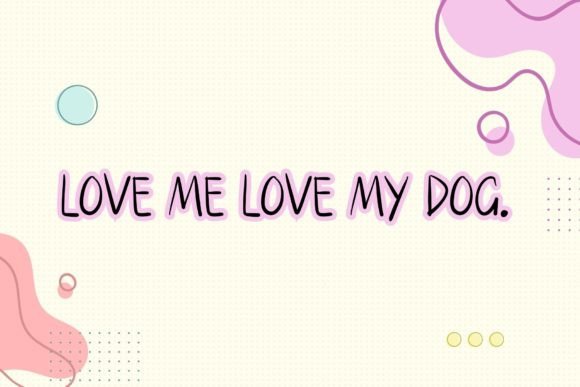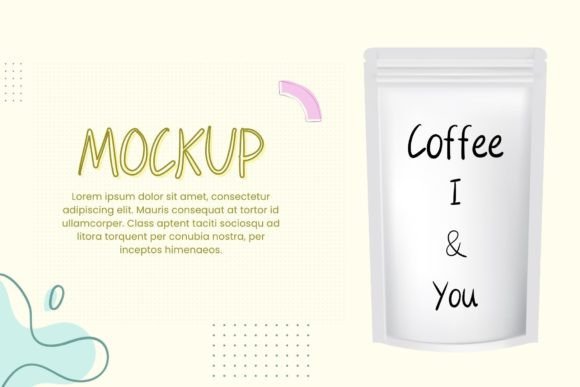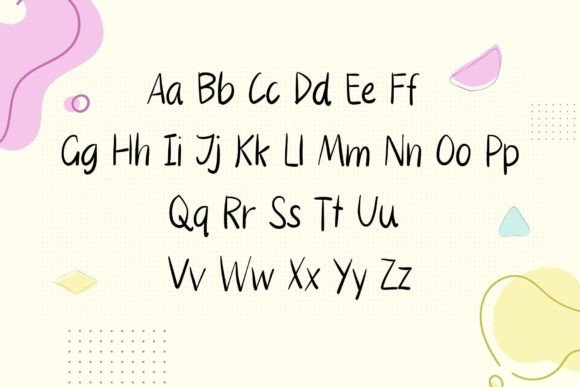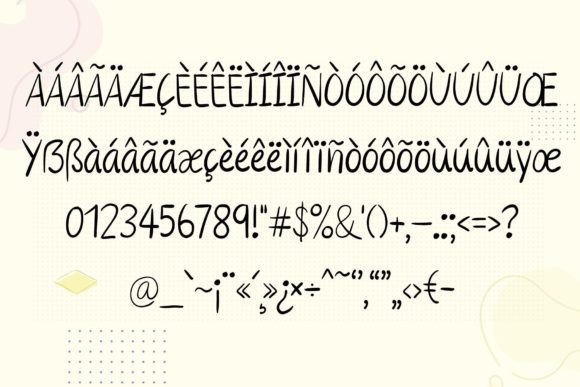
Introducing Annabel Font: The Playful and Cute Handwritten Font for Your Creative Projects
Are you a designer, crafter, or DIY enthusiast looking for a font that can add a touch of playfulness and charm to your creative projects? Look no further than Annabel Font, a beautiful and versatile handwritten font that’s perfect for a wide range of applications. In this article, we’ll take a closer look at Annabel Font, its features, and how you can use it to elevate your designs.
What is Annabel Font?
Annabel Font is a cute, handwritten font that’s designed to bring a sense of fun and personality to your designs. This playful sans-serif font is perfect for creating eye-catching invites, cards, logos, and any other creative projects that require a touch of whimsy. With its unique and charming lettering style, Annabel Font is sure to capture the attention of your audience and leave a lasting impression.
Key Features of Annabel Font
So, what makes Annabel Font so special? Here are some of its key features:
- Cute and Playful Design: Annabel Font has a unique and adorable design that’s perfect for creating fun and engaging designs.
- Handwritten Style: This font has a beautiful handwritten style that gives it a personal and human touch.
- Sans-Serif: Annabel Font is a sans-serif font, which makes it easy to read and perfect for digital applications.
- Versatile: This font is versatile and can be used for a wide range of projects, from invites and cards to logos and branding.
How to Use Annabel Font in Your Designs
Now that we’ve covered the features of Annabel Font, let’s talk about how you can use it in your designs. Here are some ideas to get you started:
- Invites and Cards: Use Annabel Font to create beautiful and playful invites and cards for parties, weddings, and other special occasions.
- Logos and Branding: This font is perfect for creating fun and quirky logos and branding materials for businesses, products, and services.
- Social Media Graphics: Use Annabel Font to create eye-catching social media graphics, such as Facebook posts, Instagram stories, and Twitter headers.
- Crafting and DIY Projects: This font is perfect for crafters and DIY enthusiasts who want to add a personal touch to their projects, such as handmade cards, gift tags, and scrapbooking.
Tips for Getting the Most Out of Annabel Font
Here are some tips for getting the most out of Annabel Font:
- Experiment with Colors: Annabel Font looks great in a variety of colors, so don’t be afraid to experiment and find the perfect color scheme for your design.
- Mix and Match with Other Fonts: This font pairs well with other fonts, so try mixing and matching it with other fonts to create a unique and interesting design.
- Use it for Headings and Titles: Annabel Font is perfect for headings and titles, so use it to add a touch of personality to your designs.
In conclusion, Annabel Font is a beautiful and versatile handwritten font that’s perfect for designers, crafters, and DIY enthusiasts. With its cute and playful design, handwritten style, and sans-serif features, this font is sure to add a touch of whimsy and charm to your creative projects. Whether you’re creating invites, cards, logos, or social media graphics, Annabel Font is a great choice. So why not give it a try and see how it can elevate your designs?